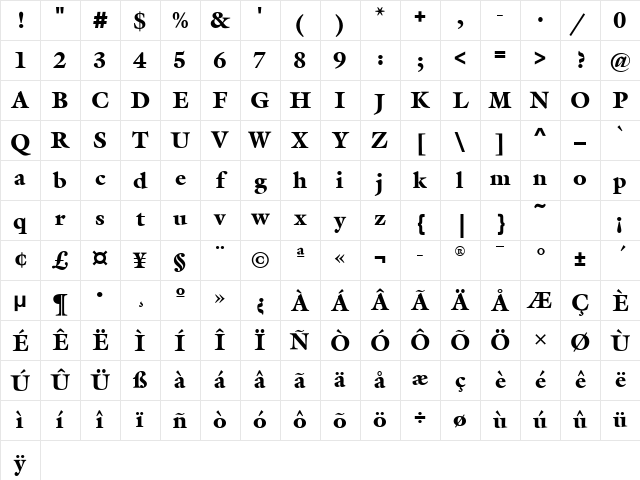
GalliardITC is a composed and adaptable typeface that performs quietly and consistently across a wide range of design contexts.
Who designed the GalliardITC Black font?